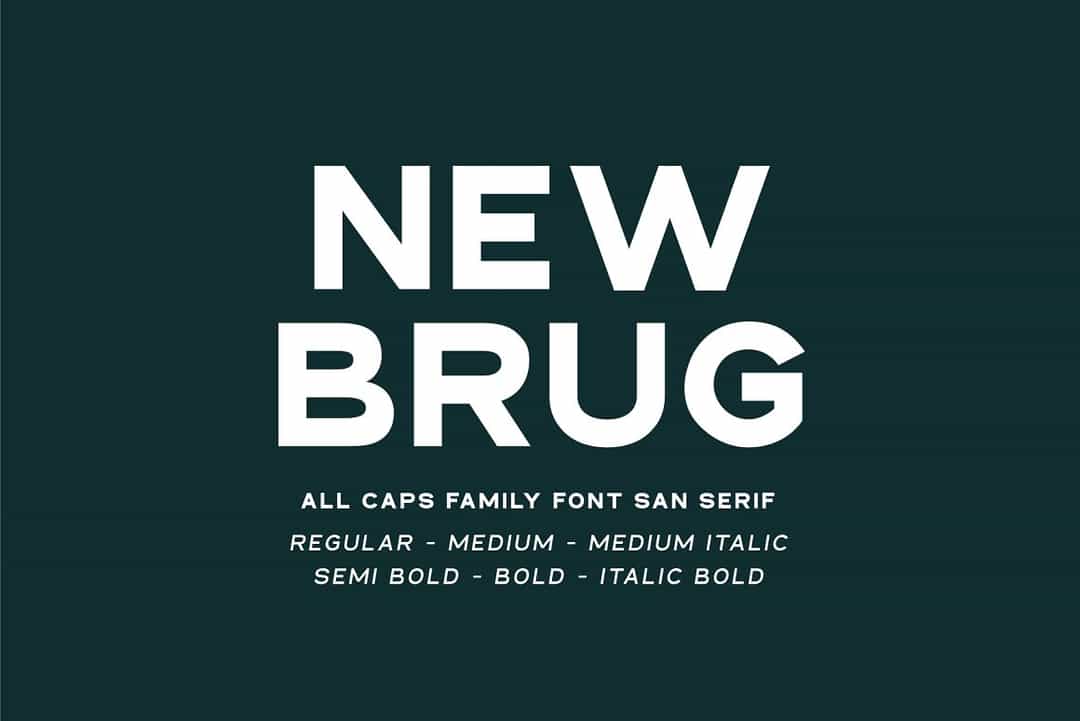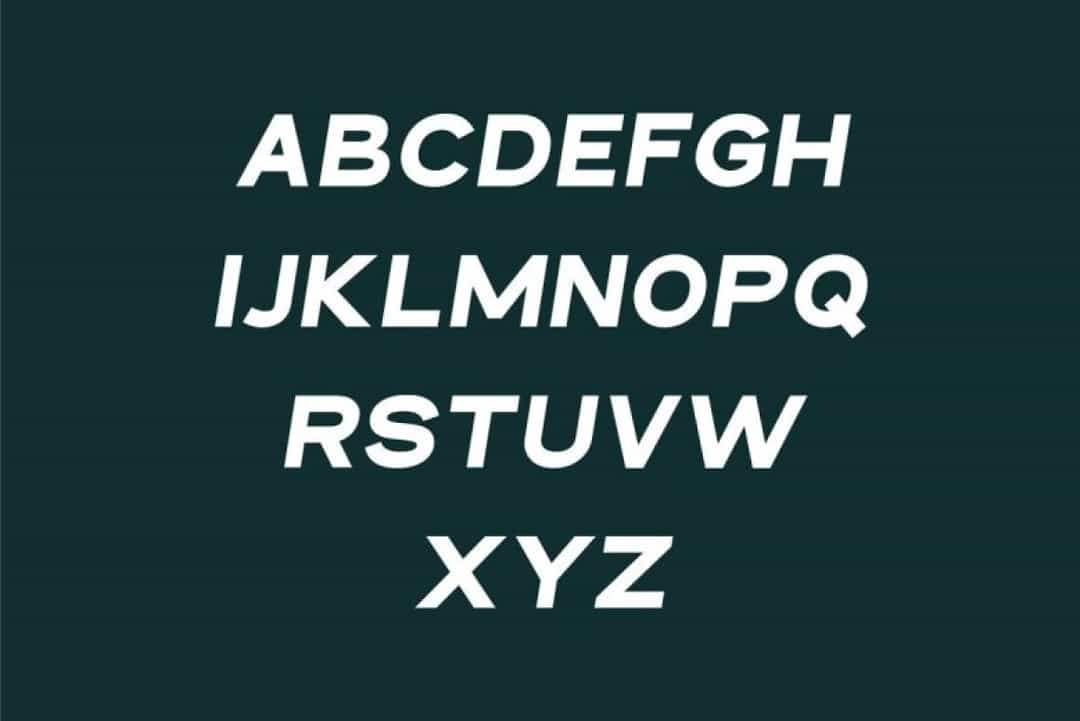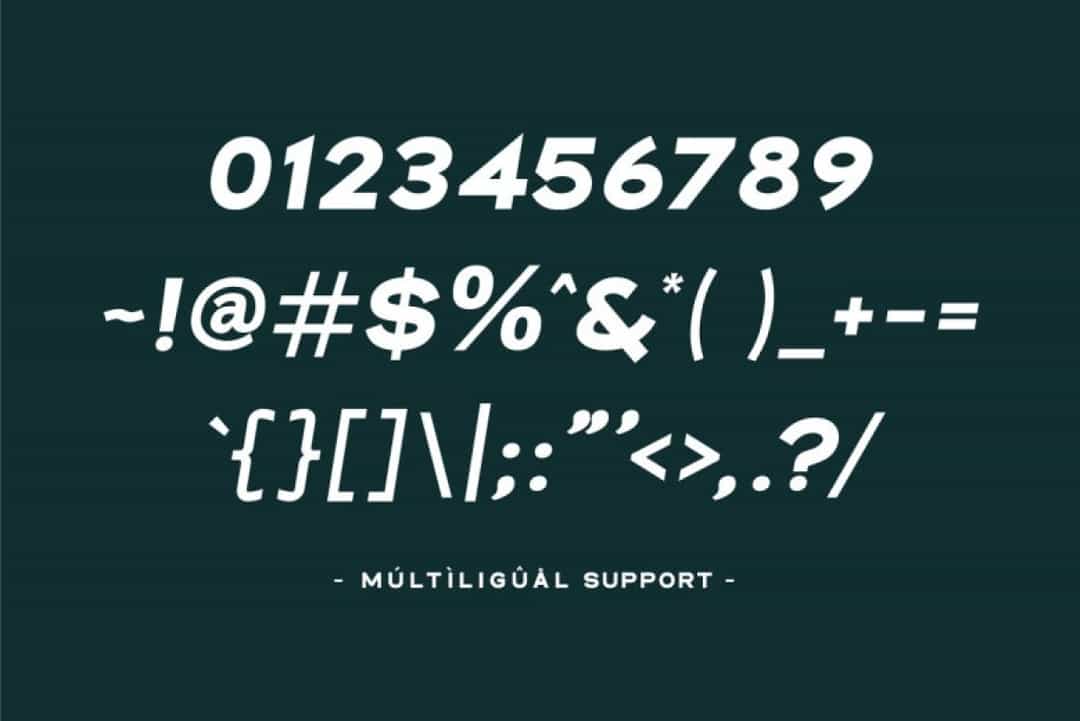
The new Brug typeface stands out with its striking yet straightforward sans-serif design. You can incorporate this font easily into a wide array of projects and designs; just add it and see its effects!